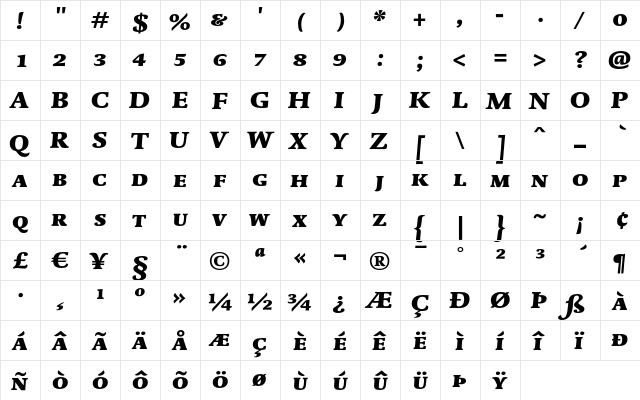
DTLDorianTCaps HeavyItalic Font Preview
DTLDorianTCaps HeavyItalic
Design Context for DTLDorianTCaps Typeface
DTLDorianTCaps is a composed and adaptable typeface that performs quietly and consistently across a wide range of design contexts. Its italic angle brings a sense of urgency and motion to the letterforms.
Pro Tip: Try DTLDorianTCaps for annotation and caption copy alongside an upright companion — the contrast in angle creates a dynamic but ordered typographic system.